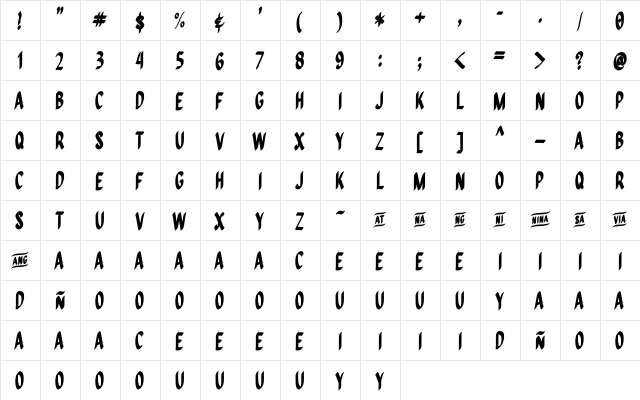
Quiapo Free Regular
| Designer | Aaron Amar |
Design Context for Quiapo Free Typeface
Quiapo Free is a composed and adaptable typeface that performs quietly and consistently across a wide range of design contexts.